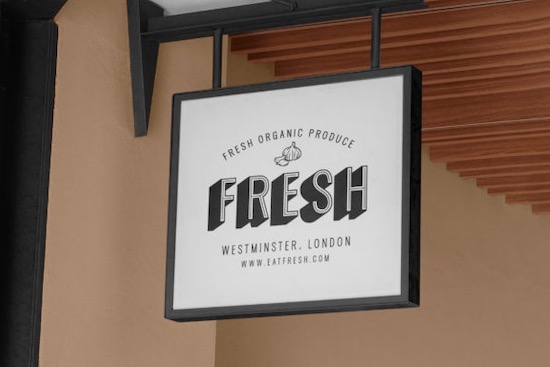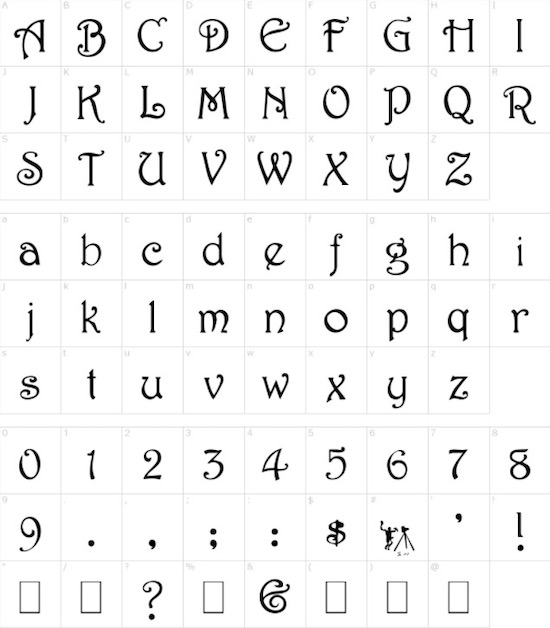
Harrington font
Harrington font is an elegant classy and modern Retro font style with a versatile functional structure for every type of design. This Decorative font was designed and published by Sam Wang. This is a famous designer with many font products that are interested and used by many graphic designers as well as software in the world.
Herrington font gives a sense of peace and lightness to the majority of the user community. With a very complete characters set with many classic stroke lines, it has certainly been, is, and will be very popular in the design world.
When using this font for our favorite, along with its versatile features, and languages support, Herrington font is huge ideal for every unique designing approach. You can create headlines, Fashion magazines, logo designs, compose books, banners, mockups packing, and more.
This is a font with many ingenious and sophisticated strokes. Combined with your creative will create individual personalities for each design product in the future.
Above is a free and fairly casual Harrington font. And now Fontspace.io presents you with a font also named Harrington but it’s a new premium font, and you can go ahead and use it for your next designs.
Harrington Sans Serif font family
Harrington font family is a classic and tall-styled Sans serif font. And this font has 3 versatile styles are:
• Harington Regular font
• Harrington Inline font
• Harrington Shadow font
It was designed and shared by Salt and Pepper Fonts, Harrington can easily be matched to a vast set of designs.